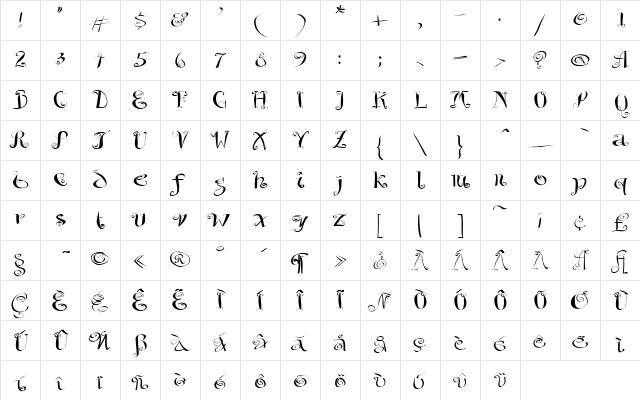
AIChaoTiqua Bold Free Font
AIChaoTiqua Bold
Foundry: Copr. Alphabets, Inc
Design Context for AIChaoTiqua
AIChaoTiqua is a composed and adaptable typeface that performs quietly and consistently across a wide range of design contexts. Its bold stroke weight gives it real presence on the page.